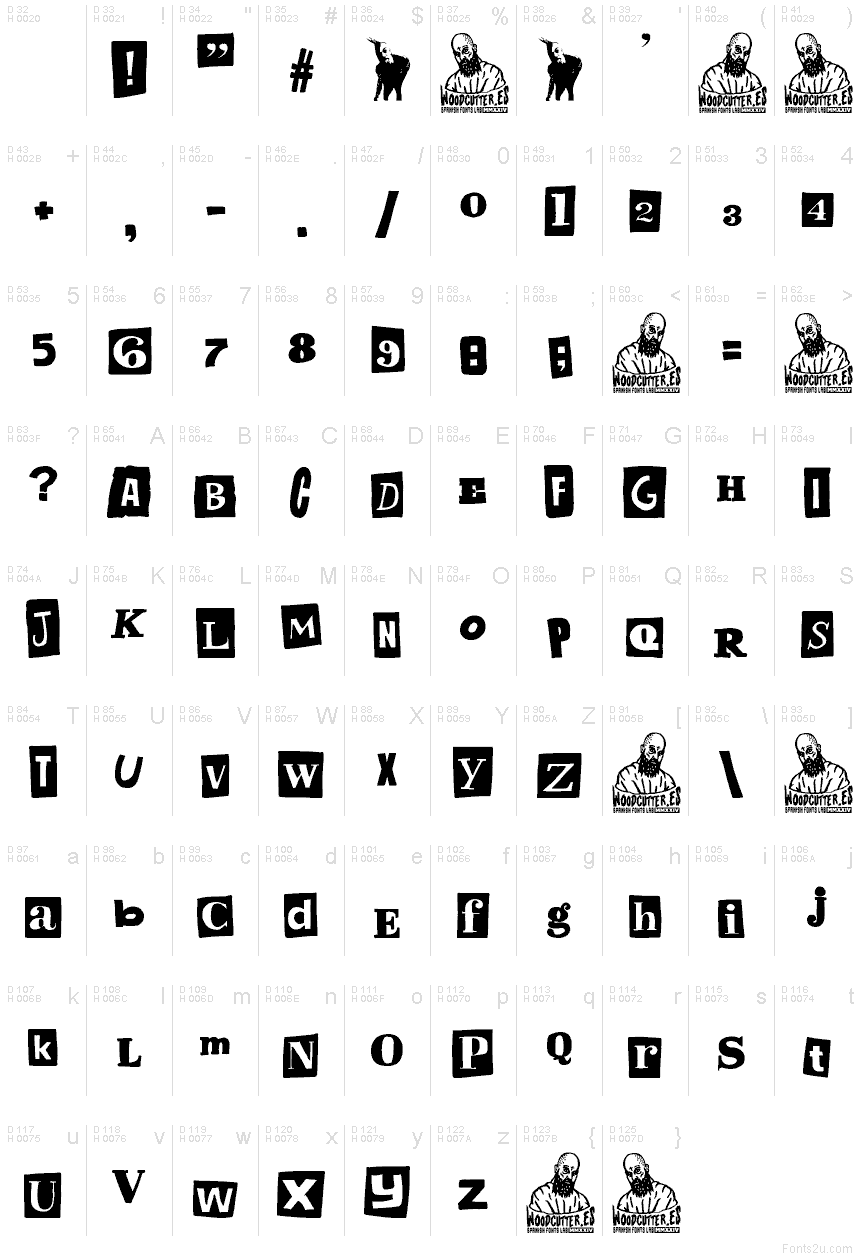
Anonymous Punk
Anonymous Punk font is a creation of Woodcutter, channelling a rebellious spirit with its distorted, collage-like appearance. This free display font boasts a bold weight and raw, distressed texture that exudes an edgy aesthetic. Its chaotic arrangement provides an undeniable counterculture vibe that resonates with youthful subcultures.
For use on album covers and editorial headlines, it also suits posters, underground events, fashion branding, skateboarding graphics, social media posts for youth-oriented brands or design projects involving punk rock themes.